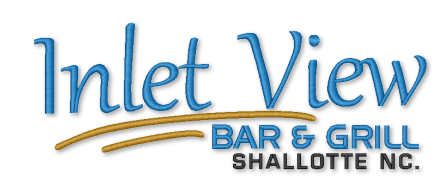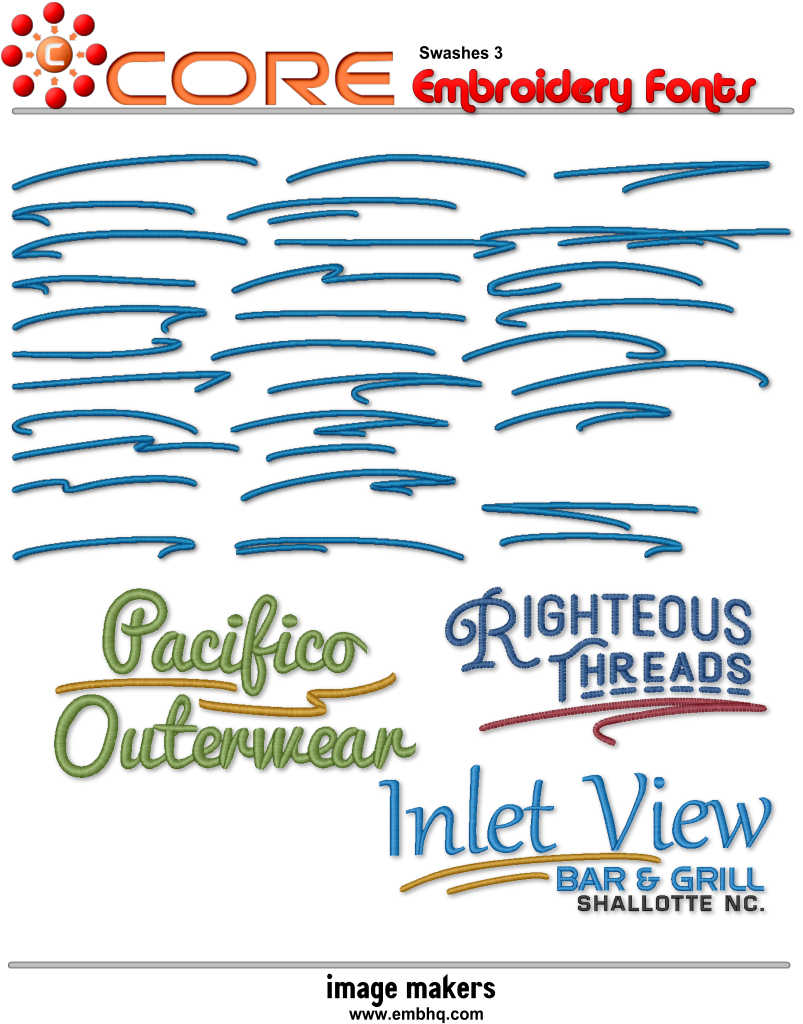
Swashes3
This is a collection of swashes to embellish your  embroidery. Give your text a custom look by adding in any of these embellishments.
Larger and thinner, suitable for larger texts